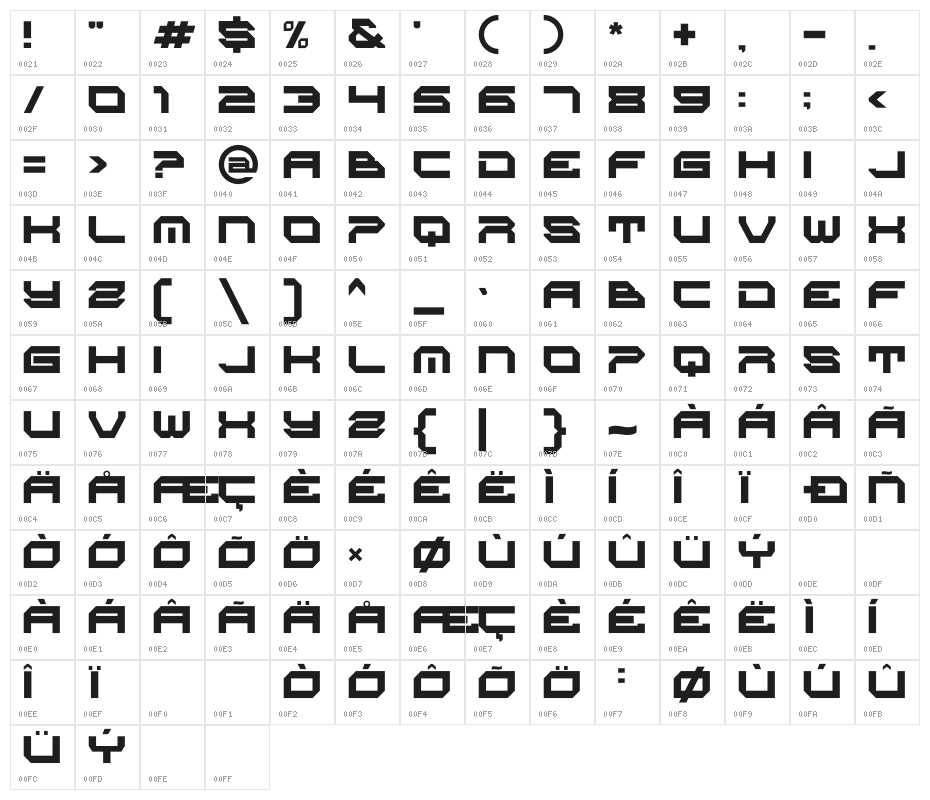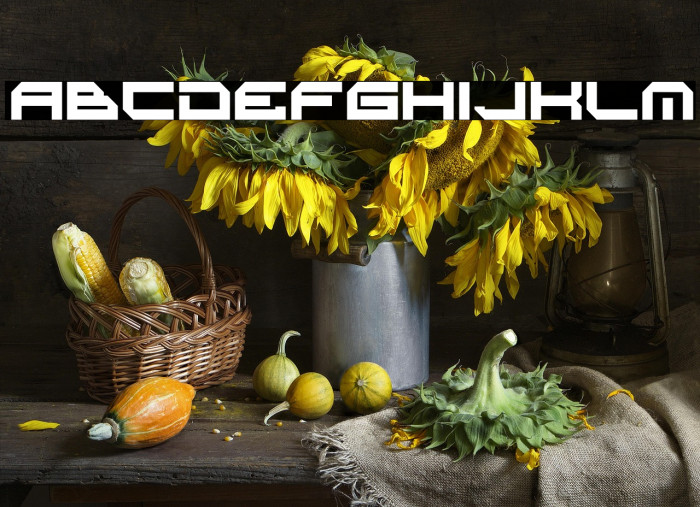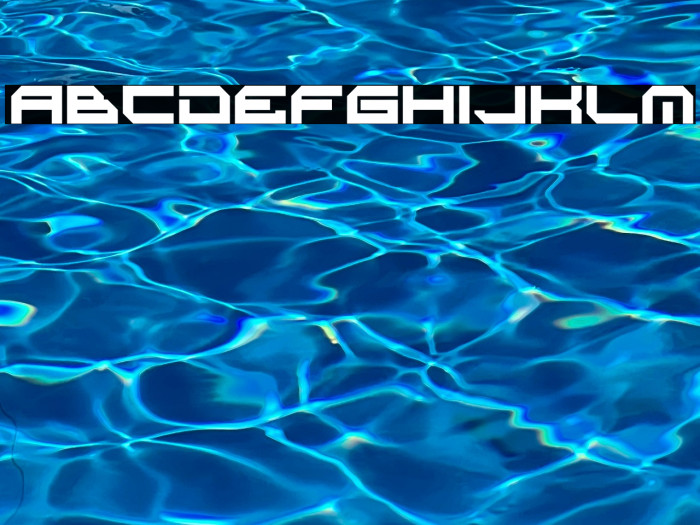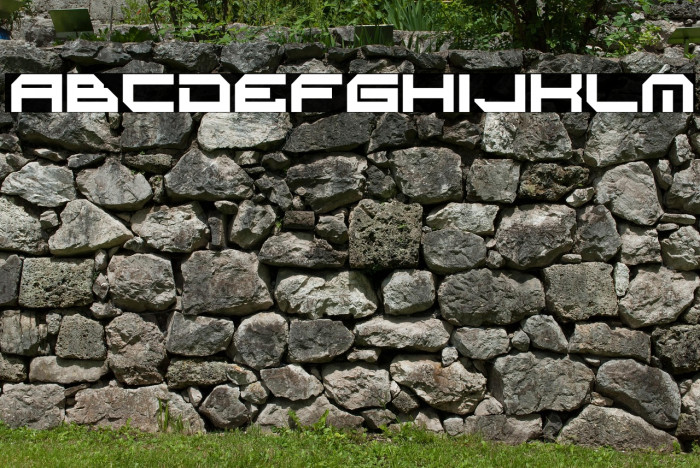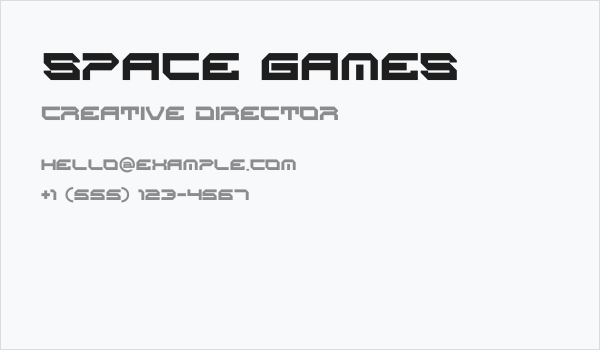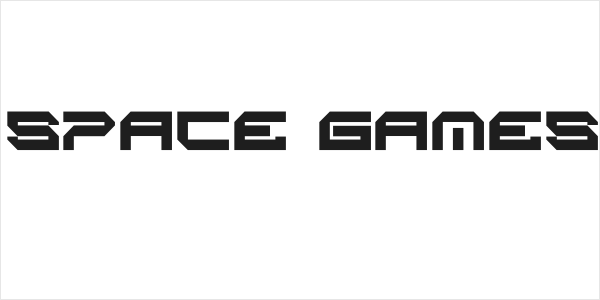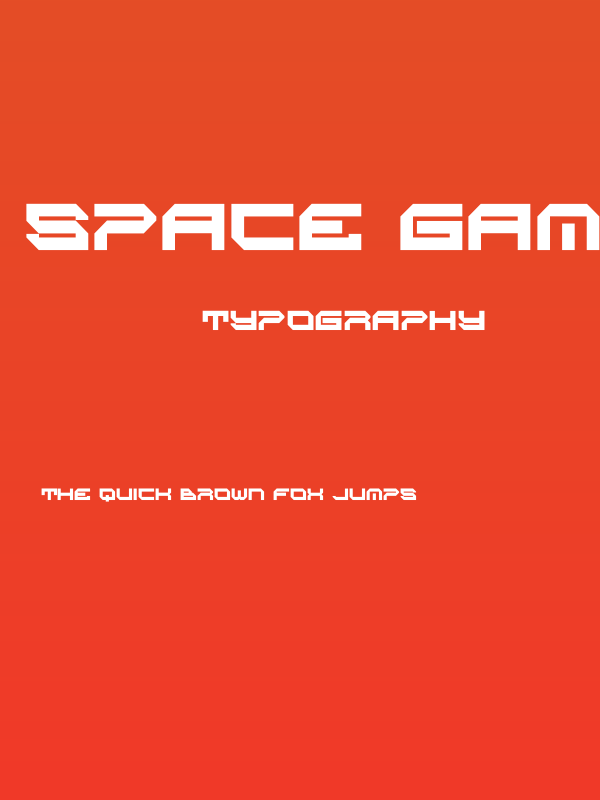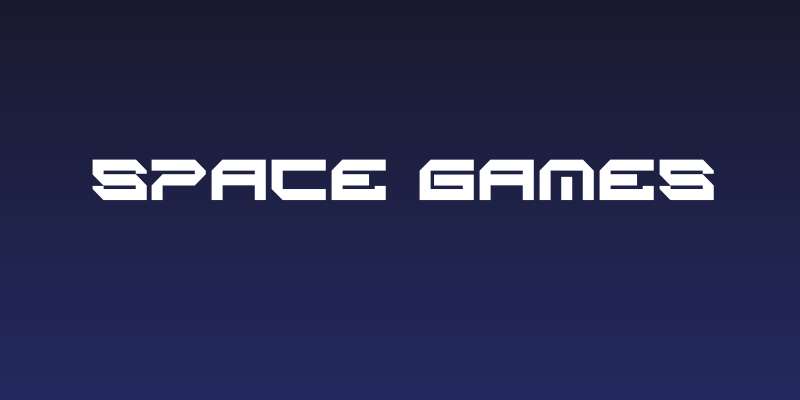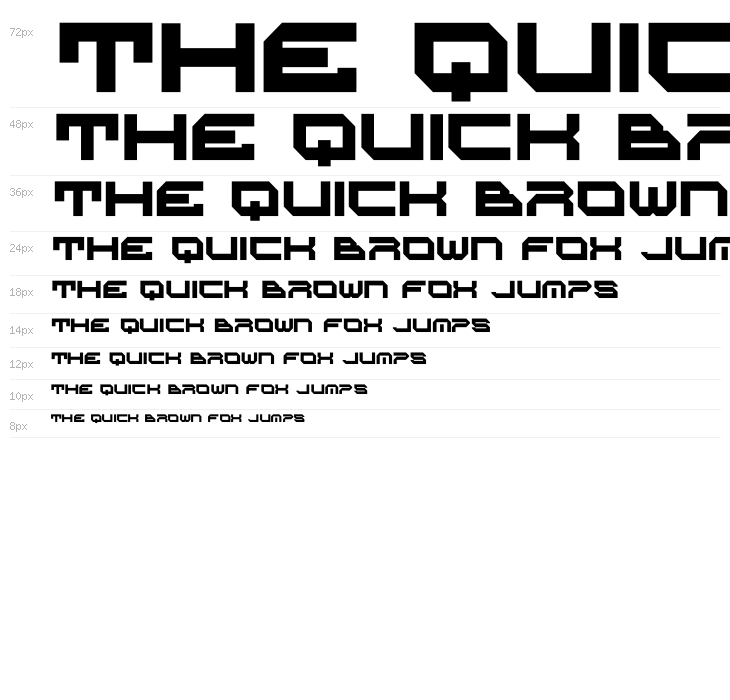
Space Games Font
Space Games Description
A futuristic, geometric font with sharp angles and a bold presence, suitable for sci-fi themes.
| Proposed Projects | Video game titles, sci-fi posters, tech branding. |